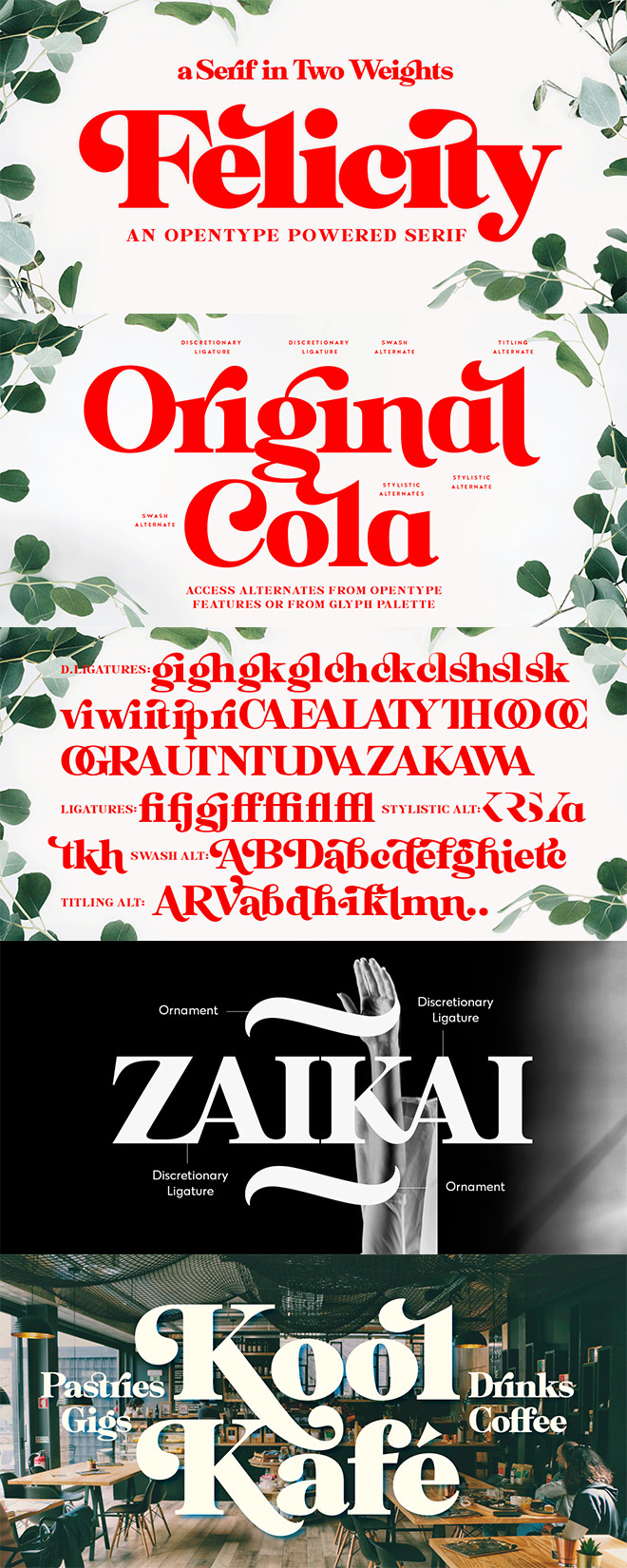
Felicity – A Serif Font Family for Access All Areas Members
This week Access All Areas members have a superb serif font to download, courtesy of Fenotype. Felicity is a tightly cut heavyweight display serif that comes in two weights and is packed with loads of OpenType features, such as Discretionary Ligatures, Stylistic, Titling or Swash Alternates. Felicity is also equipped with Contextual Alternates and Standard Ligatures that prevents letters from colliding.
Felicity is an OpenType powered serif font that supplied in two weights: Regular and Bold. It is packed full of ligatures, alternate characters and swashes that can be used to decorate and customise your text with amazing results.